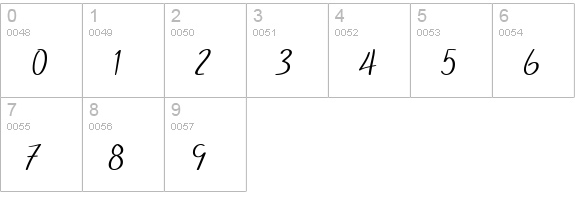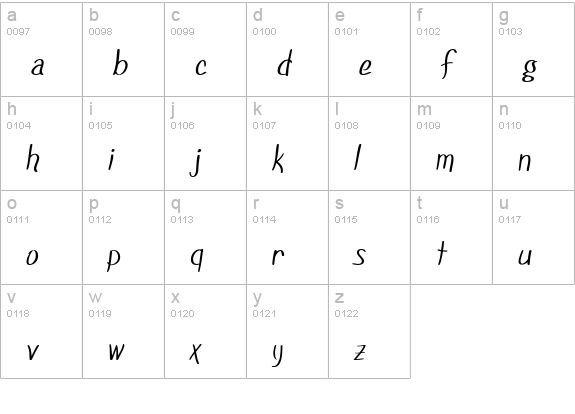
SF Foxboro Script Font Details
SF Foxboro Script is a stunningly elegant and versatile font that is sure to enhance any design project. With its graceful curves and flowing lines, this script font adds a touch of sophistication and beauty to any text. Whether you're creating wedding invitations, branding materials, or even just a personal blog, SF Foxboro Script is the perfect choice. One of the best things about SF Foxboro Script is that it is completely free. That's right, you can download this amazing font without having to spend a single penny. It's available for download at FontsMarket.com, a trusted source for high-quality fonts. Not only is SF Foxboro Script free, but it also comes with a wide range of characters and glyphs. This means that you have plenty of options when it comes to customizing your text. From ligatures to alternate characters, this font allows you to truly make your design unique and eye-catching. The versatility of SF Foxboro Script is truly impressive. It works well in both large and small sizes, making it suitable for a variety of projects. Whether you're designing a logo or creating a poster, this font will always deliver a professional and polished look. SF Foxboro Script is also incredibly easy to use. It is compatible with all major design software and can be installed on both Windows and Mac operating systems. This means that you can start using this font right away, without any hassle or compatibility issues. In summary, SF Foxboro Script is a free font that combines elegance and versatility. With its beautiful curves and wide range of characters, this font is perfect for any design project. Best of all, it's available for free download at FontsMarket.com. Don't miss out on this amazing font – start using SF Foxboro Script today and take your designs to the next level.